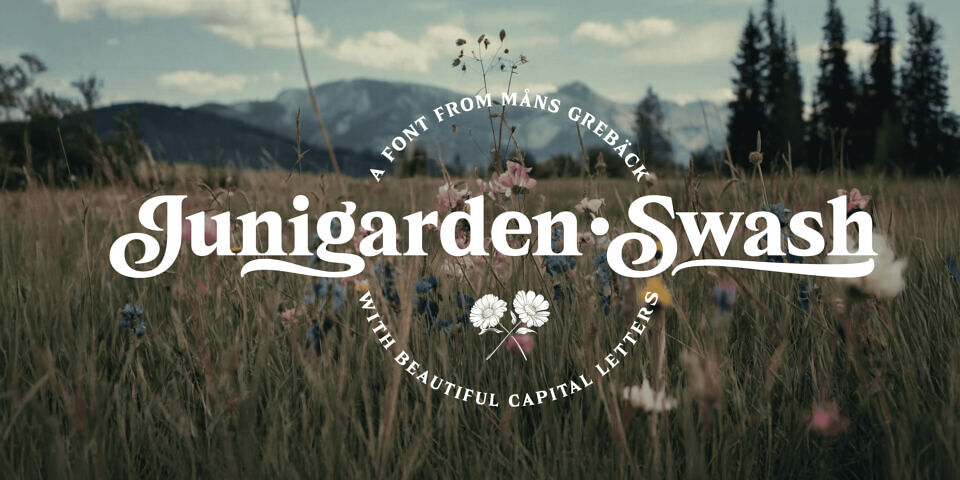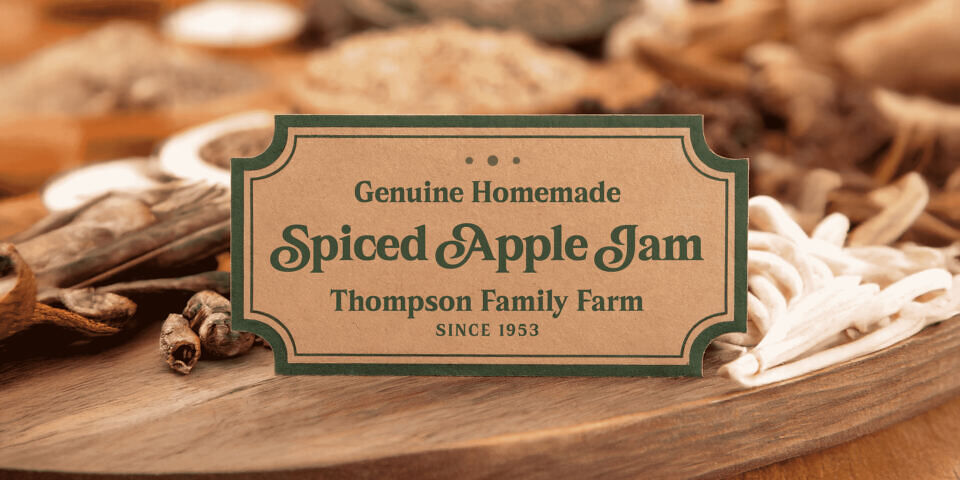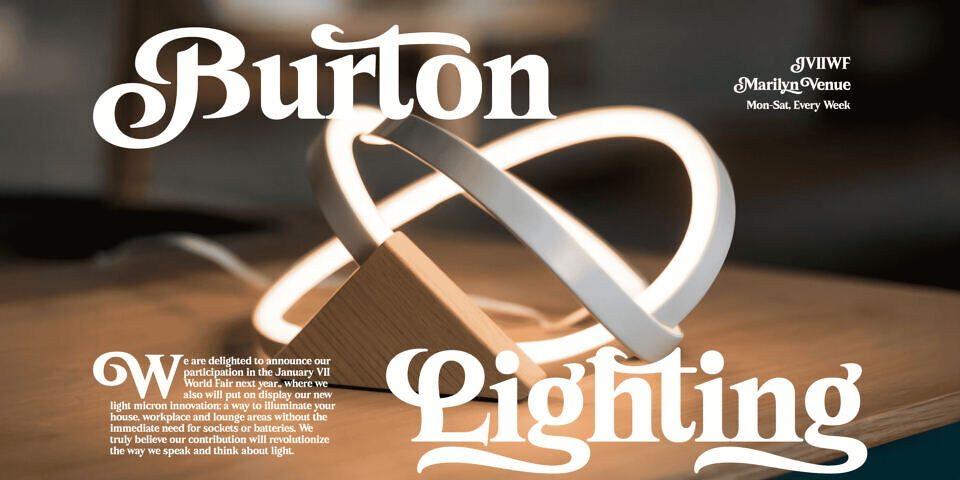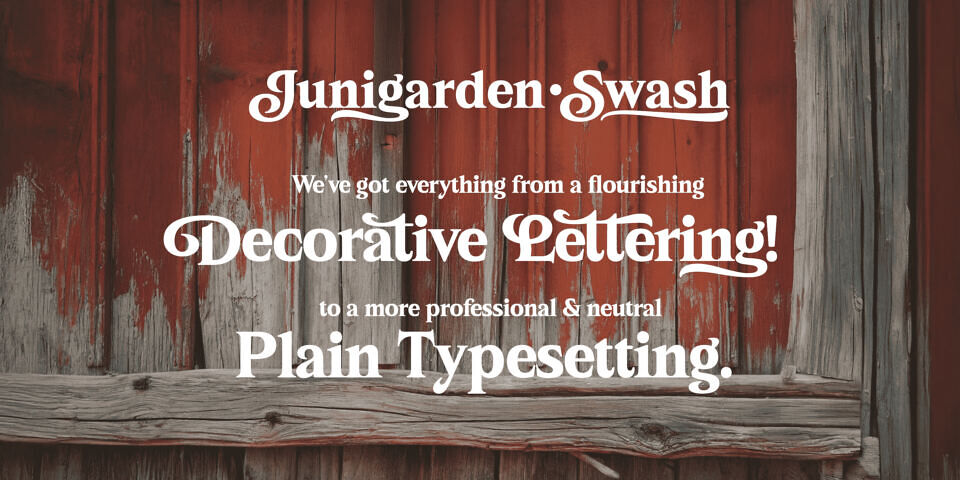
Junigarden Font
Junigarden Swash and Serif evokes a warm, nostalgic feeling, blending vintage elegance with the liveliness of summer days. It’s a serif typeface adorned with flowing swashes that lend it a graceful and decorative flair, reminiscent of timeless beauty. The font strikes the perfect balance between boldness and delicacy, transporting you to a bygone era while remaining fresh and vibrant.
The swashes bring a sense of movement and charm, ideal for creating designs that feel both sophisticated and playful. Whether it’s capturing the beauty of a garden in full bloom or the essence of a sunny afternoon, Junigarden Swash is full of character and expressive detail.